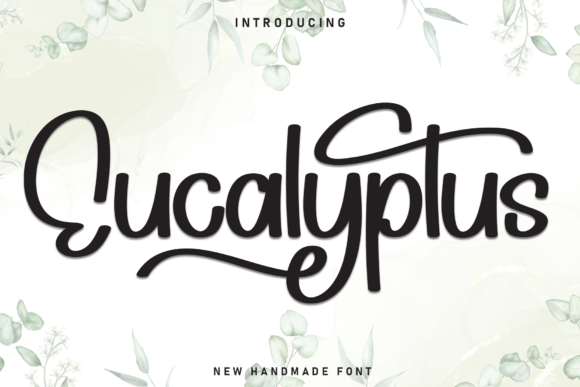
Eucalyptus Font: A Charming Handmade Script for Modern Designs
In the world of typography, few fonts manage to capture the essence of natural elegance while maintaining modern sophistication. Eucalyptus, a charming handmade script font, achieves this delicate balance with remarkable finesse. This beautiful font blends the organic rhythm of handwriting with the refined touch of contemporary design, making it an exceptional choice for a wide range of creative projects.
The Distinctive Features of Eucalyptus Font
Eucalyptus is characterized by its smooth, rounded strokes and flowing letterforms that closely mimic casual brush lettering. This gives the font a warm, approachable feel that is both inviting and aesthetically pleasing. The defining features of Eucalyptus include:
- Smooth, Rounded Strokes: The font boasts fluid strokes that lend a sense of movement and grace to the text.
- Flowing Letterforms: Inspired by casual brush lettering, the letters in Eucalyptus flow effortlessly into one another, creating a harmonious and natural look.
- Decorative Swashes: Letters such as the “E” and “s” are adorned with decorative swashes that add a touch of elegance and sophistication.
- Long, Looping Tail of the “e”: The distinctive tail of the lowercase “e” adds a playful yet refined flair to the font, setting it apart from more conventional scripts.
Readability and Artistic Appeal
One of the standout qualities of Eucalyptus is its ability to balance artistic appeal with readability. The font features consistent baseline alignment, which ensures that text remains clear and legible even in smaller sizes. Additionally, the moderate contrast in stroke weight enhances the font’s visual interest without compromising its readability. This makes Eucalyptus an excellent choice for both display purposes and body text.
Ideal Uses for Eucalyptus Font
Eucalyptus’s versatile design makes it suitable for a variety of applications. Here are some of the ideal uses for this beautiful font:
- Logos: The unique, handcrafted charm of Eucalyptus makes it perfect for logos that require a personal touch.
- Product Packaging: Add a natural, organic feel to your product packaging with Eucalyptus, making your brand stand out on store shelves.
- Wedding Stationery: The elegant and refined appearance of Eucalyptus makes it an excellent choice for wedding invitations, programs, and other stationery.
- Nature-Inspired Designs: For projects that celebrate the beauty of nature, Eucalyptus provides a thematic and visually appealing typographic solution.
Why Choose Eucalyptus Font?
In a digital age where uniformity and sans-serif fonts dominate, Eucalyptus offers a refreshing alternative. Here are a few reasons why designers and brands might choose Eucalyptus:
- Personality: Eucalyptus brings a distinct personality to any project, setting it apart from more generic fonts.
- Handcrafted Charm: The font’s handmade nature gives it a unique, human touch that resonates with audiences.
- Warmth and Organic Feel: Eucalyptus’s natural, flowing design elements evoke a sense of warmth and authenticity.
- Versatility: With its balance of elegance and playfulness, Eucalyptus can be used across a range of creative projects.
Tips for Using Eucalyptus Effectively
To maximize the impact of Eucalyptus in your designs, consider the following tips:
- Pair with Complementary Fonts: Combine Eucalyptus with clean, sans-serif fonts for contrast and visual interest.
- Adjust Swashes: Customize the decorative swashes to fit the tone and style of your project.
- Play with Colors: Eucalyptus looks beautiful in a range of colors, but earth tones and pastels can enhance its natural charm.
- Use for Headlines and Accents: While Eucalyptus is legible, it shines brightest when used for headlines or accent text.
Eucalyptus font is a versatile and charming handmade script that brings a blend of natural rhythm and modern elegance to any design project. Its smooth strokes, flowing letterforms, and decorative swashes make it a standout choice for designers looking to infuse their work with personality and handcrafted charm. Whether you’re creating logos, product packaging, wedding stationery, or nature-inspired designs, Eucalyptus offers a warm, organic touch that elevates your creative projects to new heights.